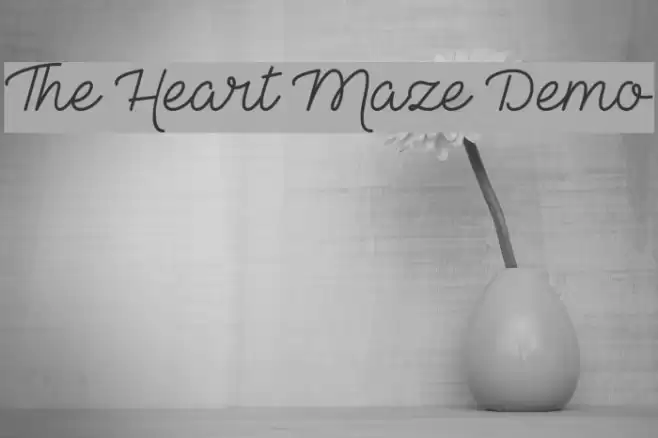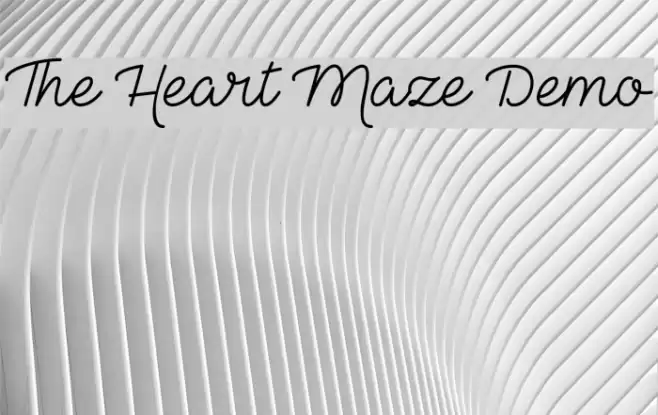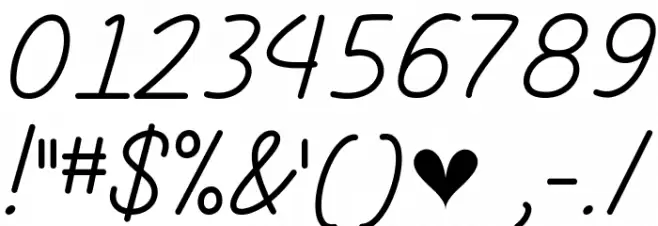
The Heart Maze Demo Font
The Heart Maze Demo Description
This font features a flowing, cursive style that exudes elegance and charm. The characters are connected, creating a smooth and continuous line that mimics natural handwriting. The uppercase letters are slightly more elaborate, with graceful loops and swirls, while the lowercase letters maintain a consistent and harmonious flow. The numerals are clear and legible, maintaining the cursive theme without sacrificing readability. Special characters are thoughtfully designed to match the overall aesthetic, adding a touch of sophistication. This font is perfect for projects that require a personal, handwritten touch.
A flowing, cursive font with elegant, connected characters from Uncategorized fonts.
- Proposed Projects: Ideal for wedding invitations, greeting cards, personal branding, and elegant logos.
- Overall Style: Elegant
- Use Case: Logos, Invitations, Greeting Cards